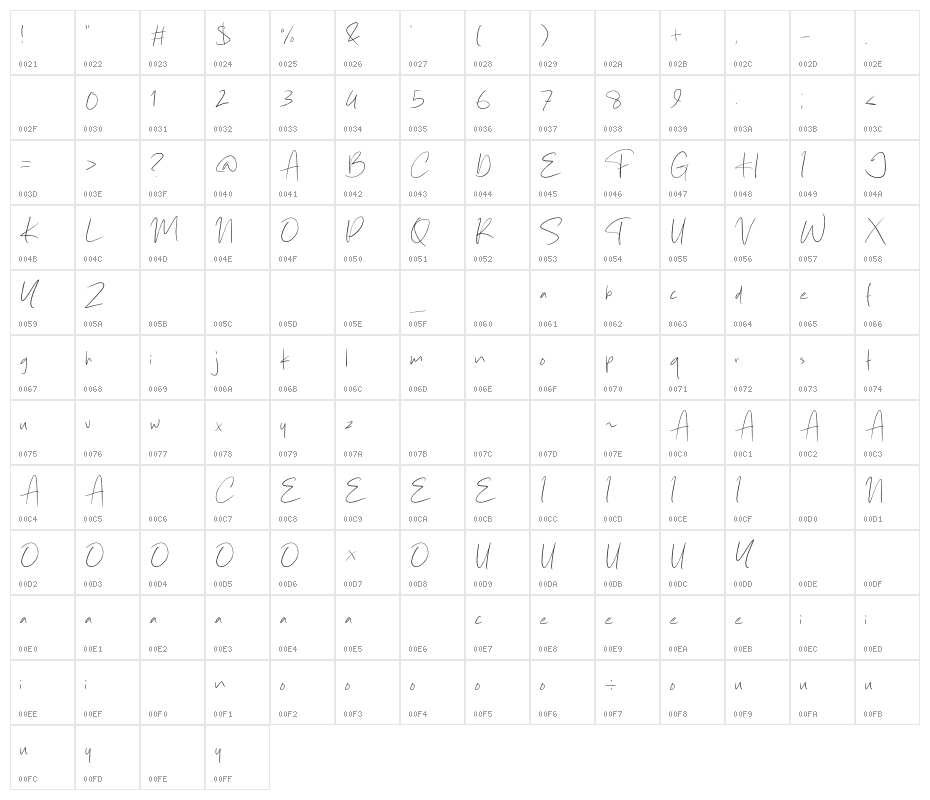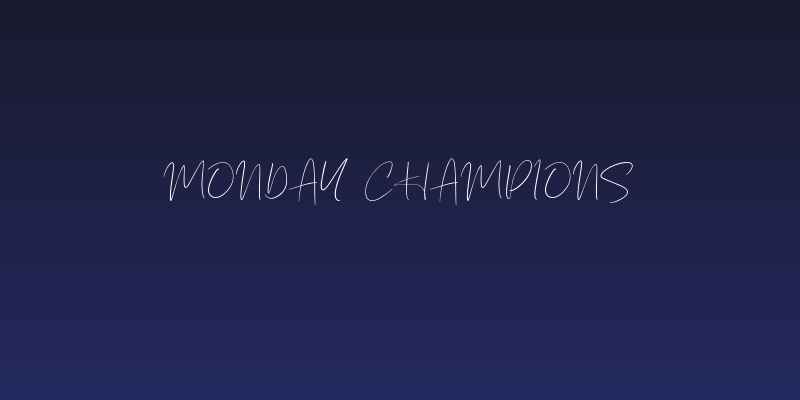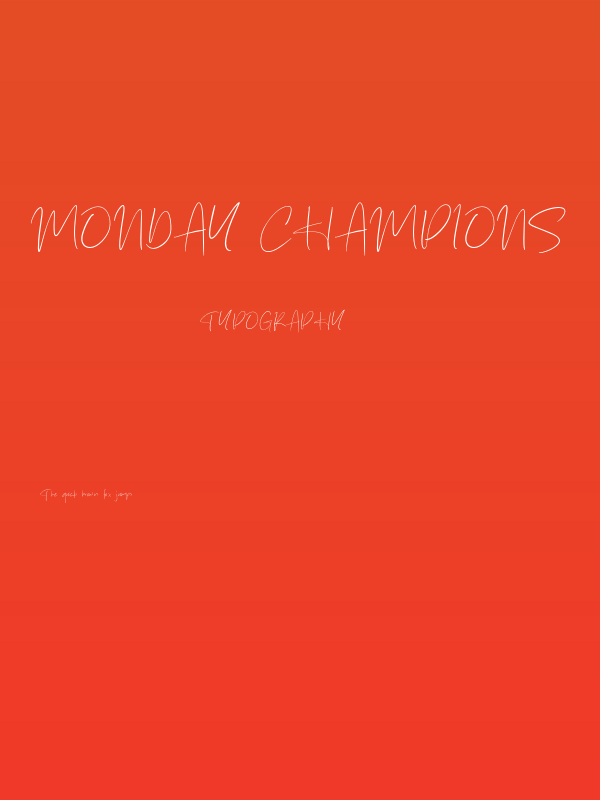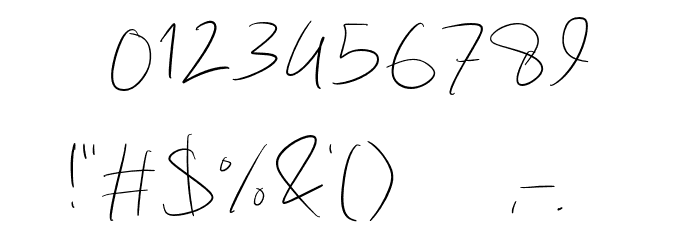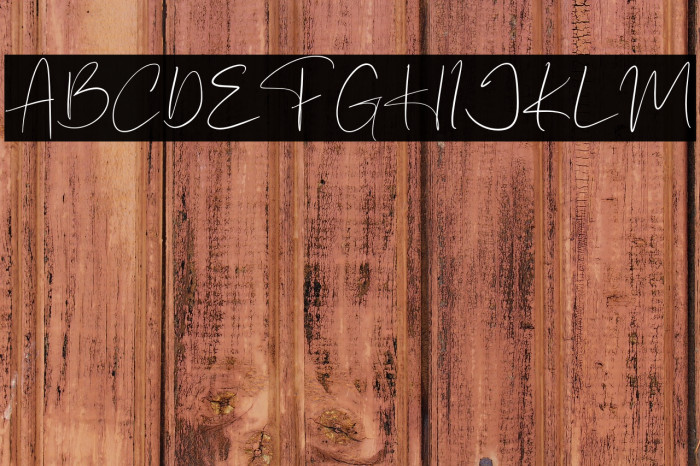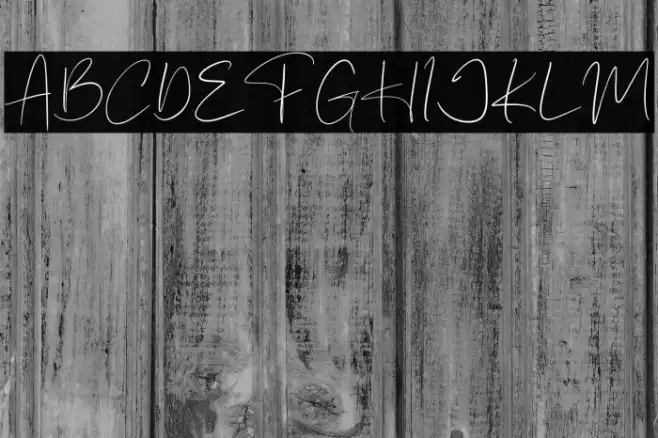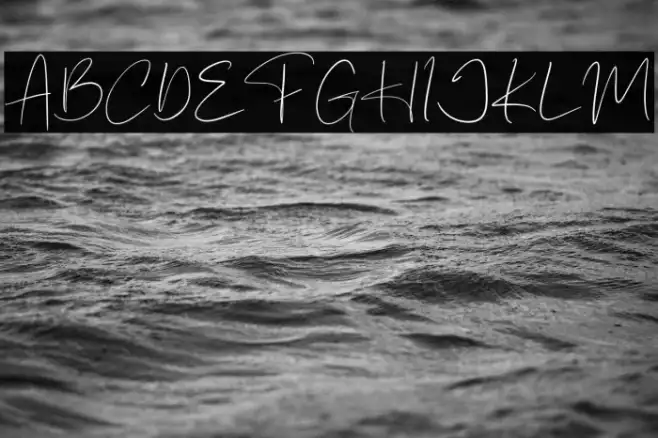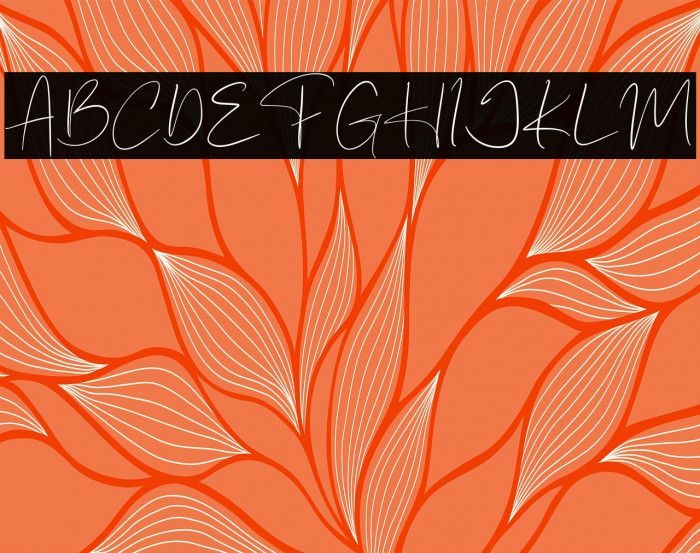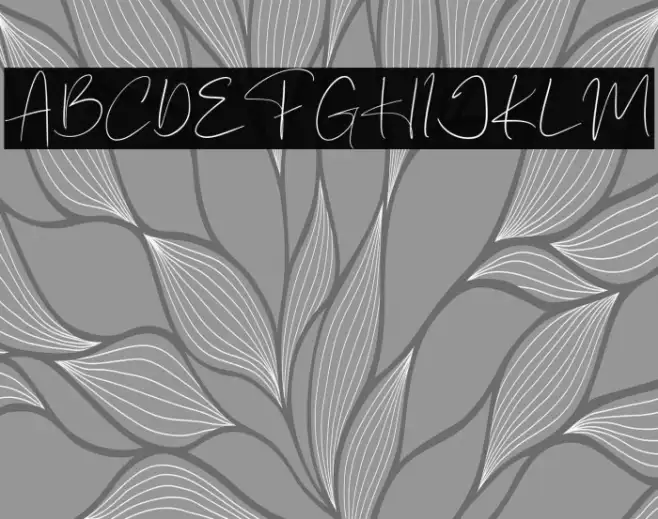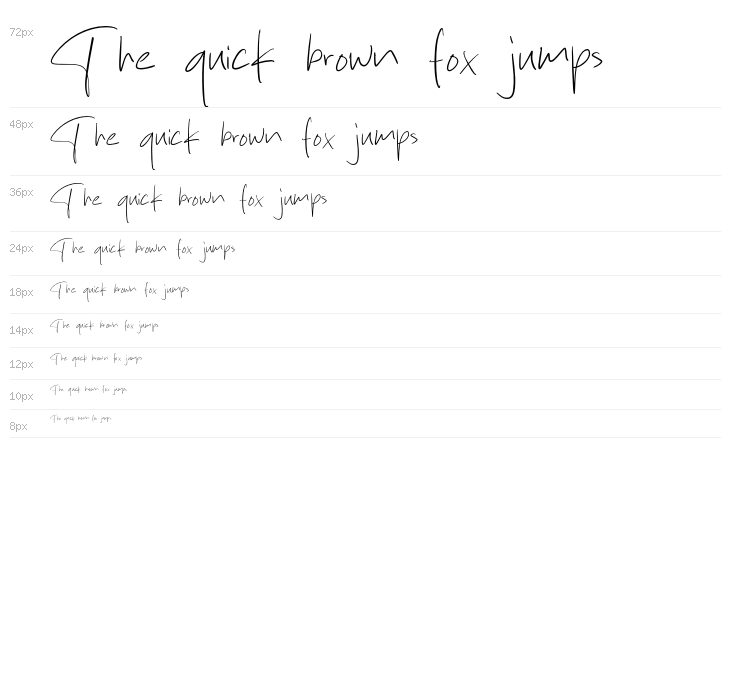
Monday Champions Font
Monday Champions Description
This font exhibits a casual, handwritten style with a playful and informal appearance. The letters are characterized by their fluid and organic strokes, giving a sense of spontaneity and personal touch. The uppercase and lowercase letters maintain a consistent style, with slight variations in stroke width that add to the handwritten feel. The numerals and special characters are designed to match the overall aesthetic, ensuring a cohesive look across all elements. This font's unique charm lies in its ability to convey a sense of warmth and approachability, making it suitable for projects that require a personal or creative touch.
| Use Case | Logos, Invitations, Social Media Graphics |
| Proposed Projects | Ideal for personal invitations, creative branding, casual social media graphics, and informal event posters. |